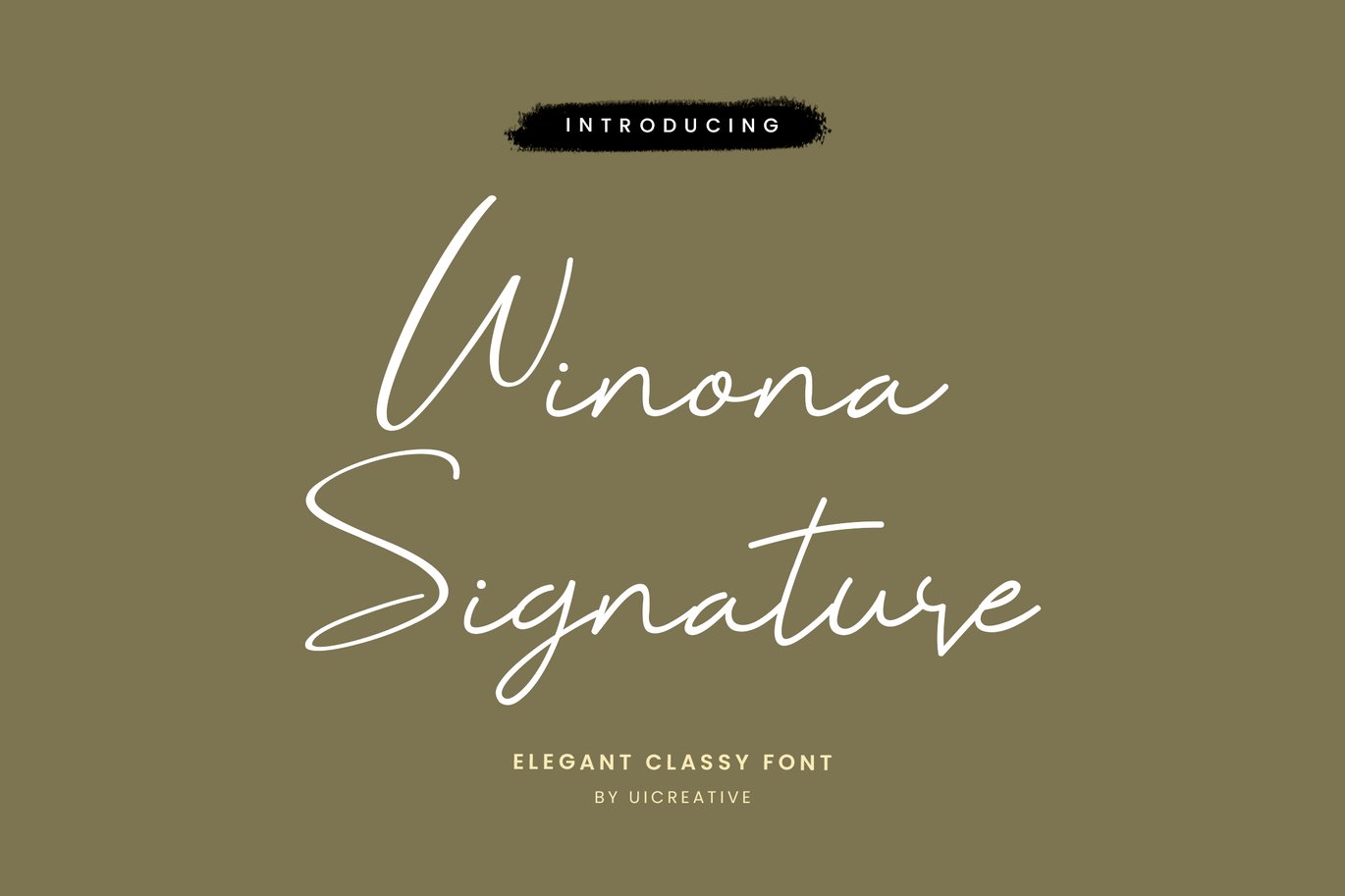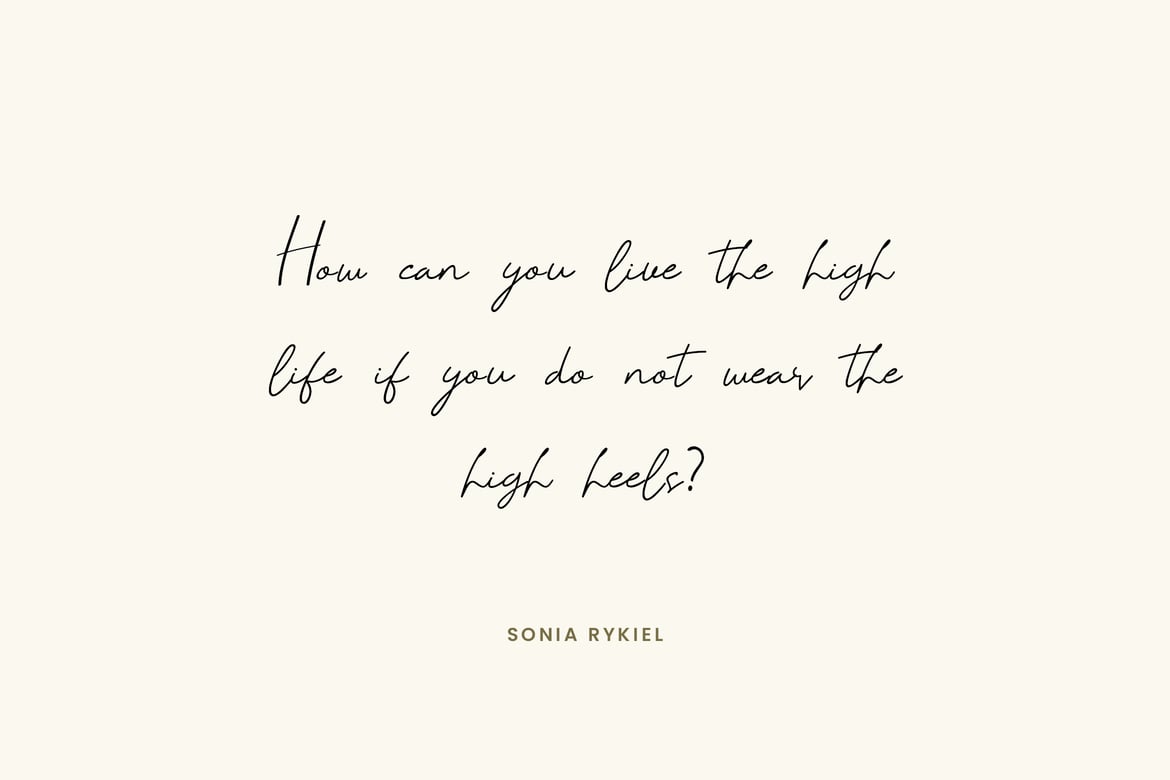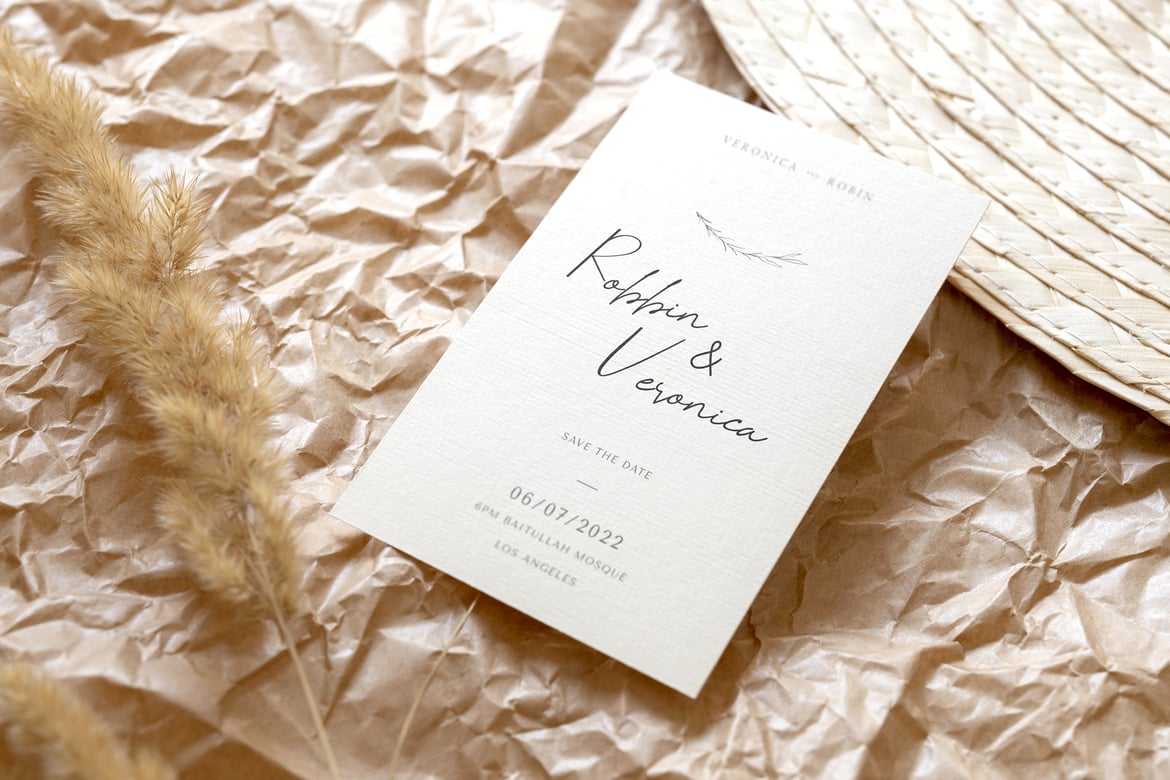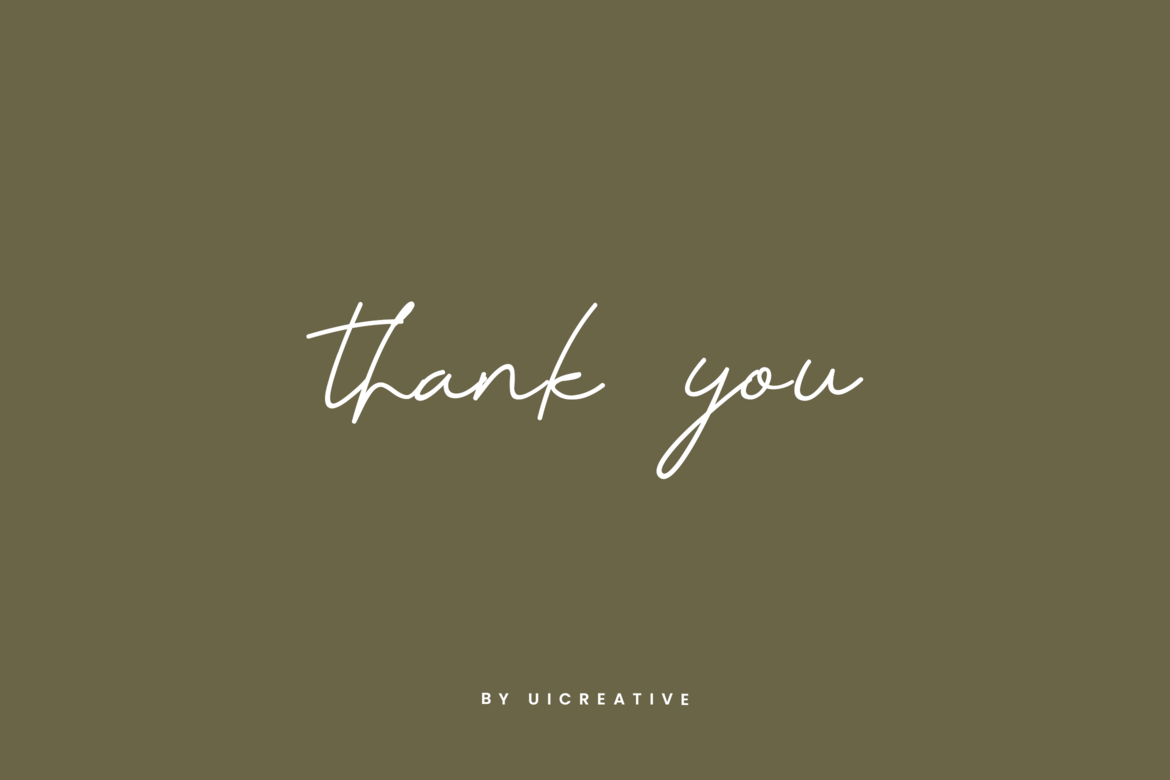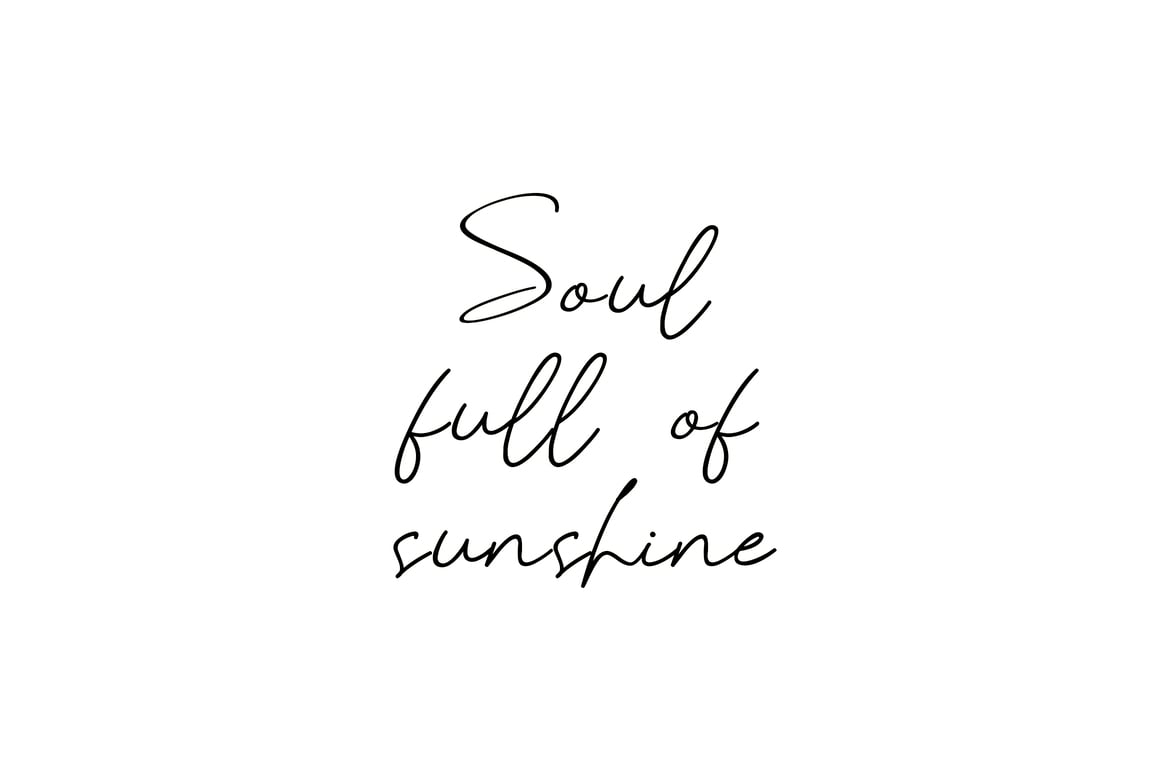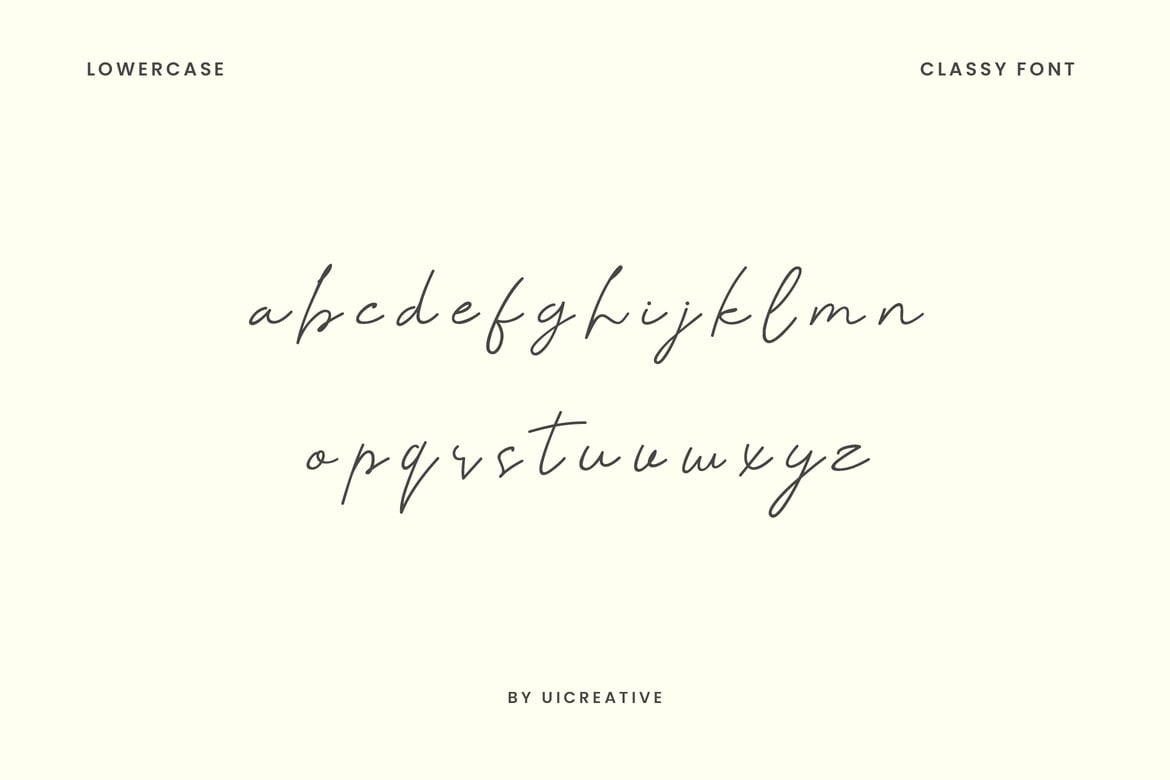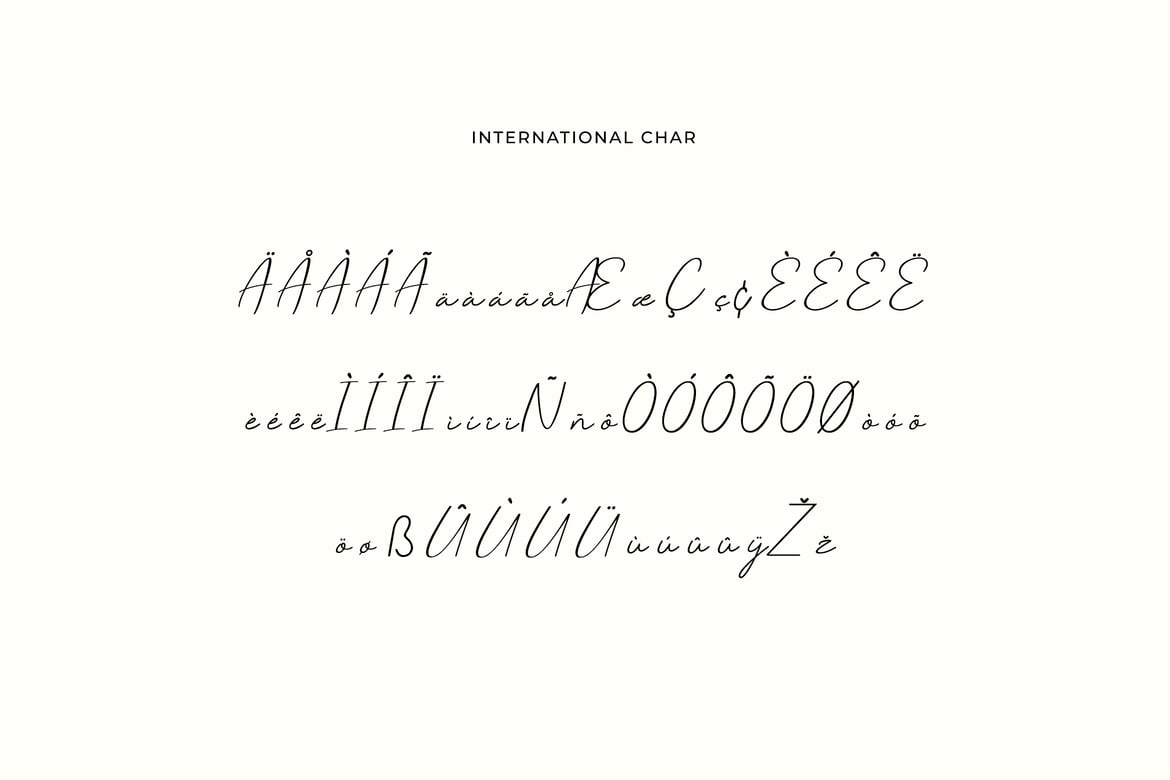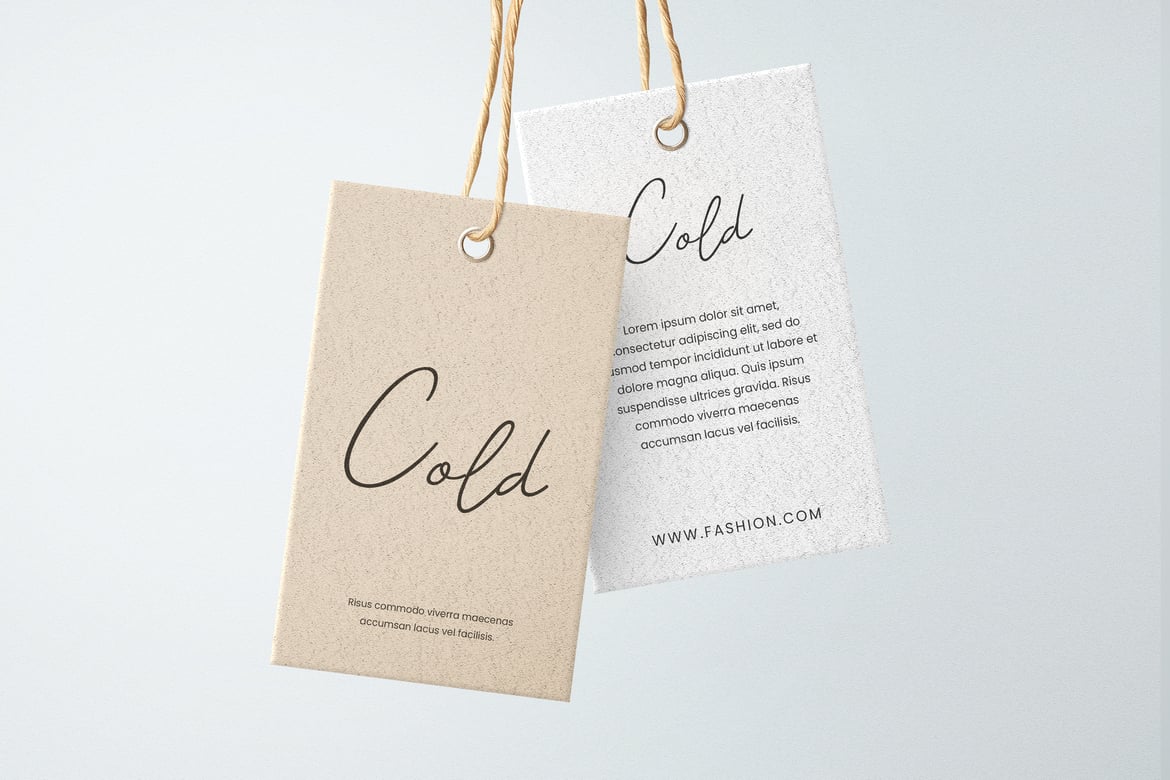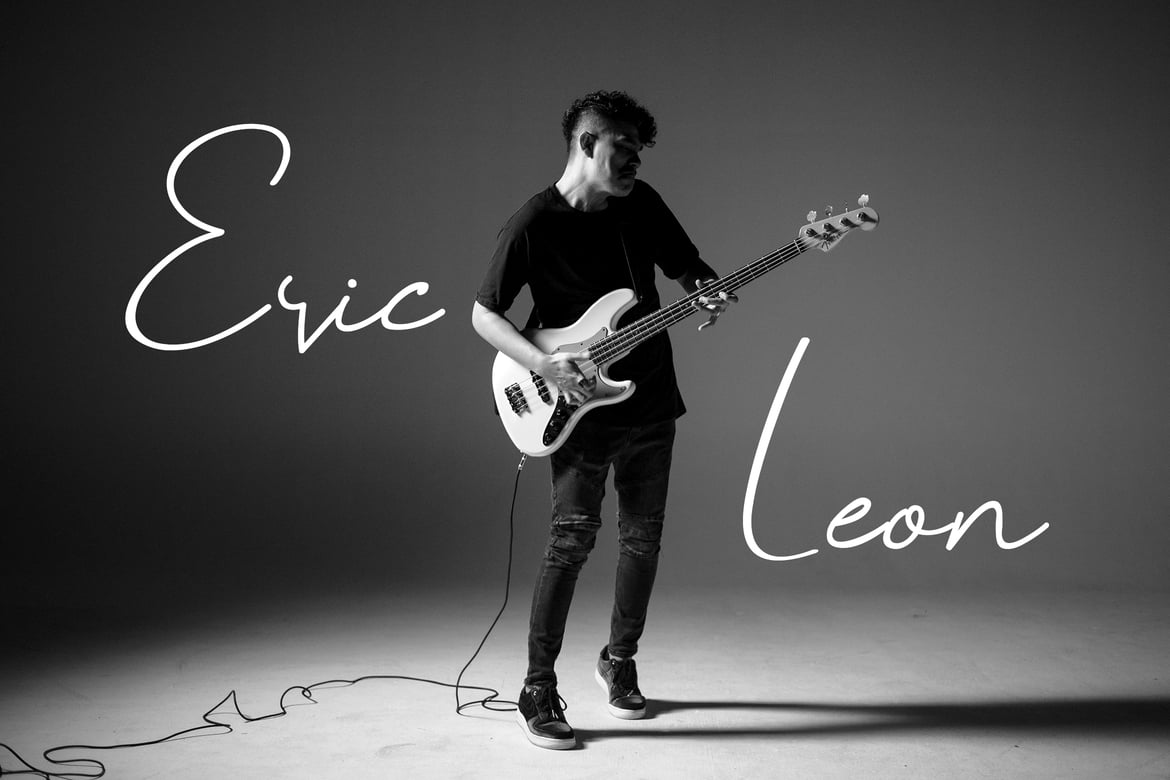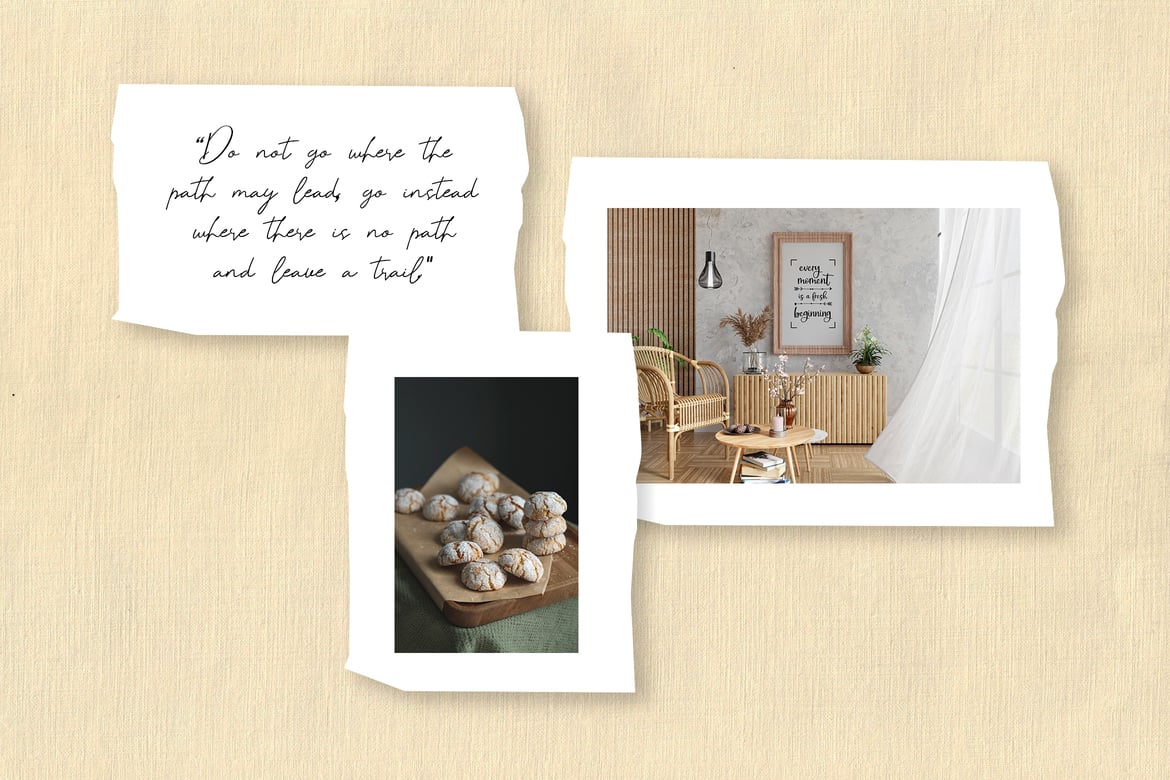
Winona Signature Font
Introducing of our new product the name is Winona Signature Font. This collection of scripts is perfect for personal branding. It was made with the intention to be used for your personal branding. But, this works well for many applications. Everything from personal branding, logos, name tag, handwritten quotes, product packaging, merchandise, social media & greeting cards. photography signature, advertising could benefit from this collection of these bold signature fonts.